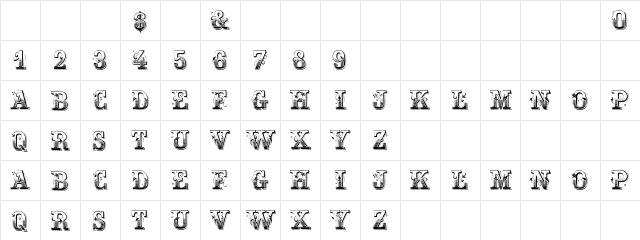
Holtzschue Regular
Design Context for Holtzschue Typeface
Holtzschue is a composed and adaptable typeface that performs quietly and consistently across a wide range of design contexts.